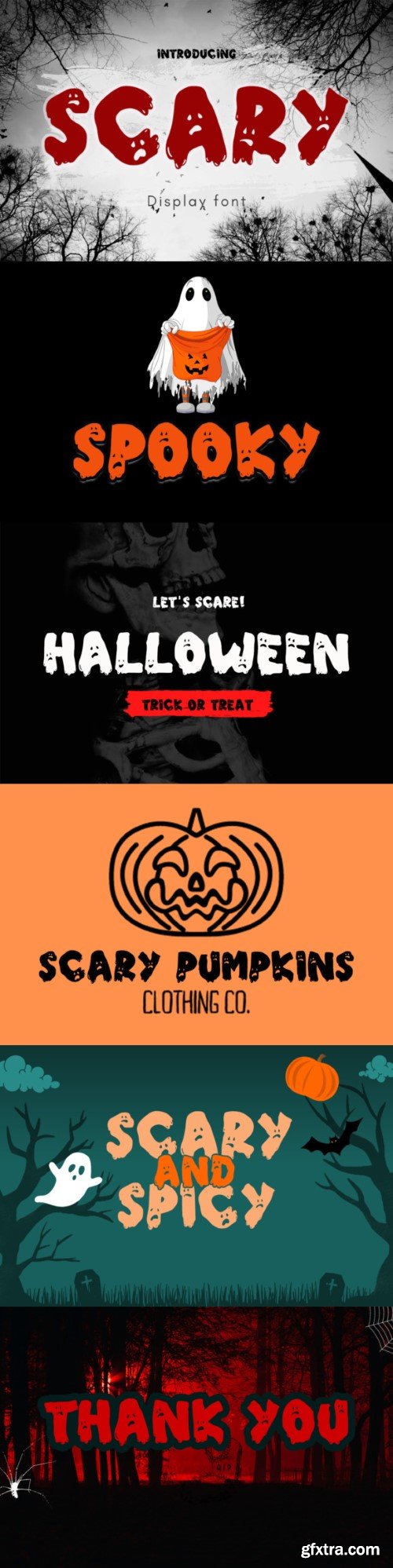
吓人的字体 scary is a handwritten font display cute and cute font, suitable for various purposes you want, Download from free file storage Download from www.filenext.com 我要反馈 本站不对文件进行储存,仅提供文件链接,请自行下载,本站不对文件内容负责,请自行判断文件是否安全,如发现文件有侵权行为,请联系管理员删除。 今日热门 拉里萨字体 超级糖果字体 CM - Scarlet Bradley Font Duo 16500307 CM - Realguy - Brush Font 2756515 Rekiya Font 2593398 نانnciai 字体 CHARISNA FONT 托比Next字体 永不 die 字体 CM - 安马拉 - 手写体字体 6520913